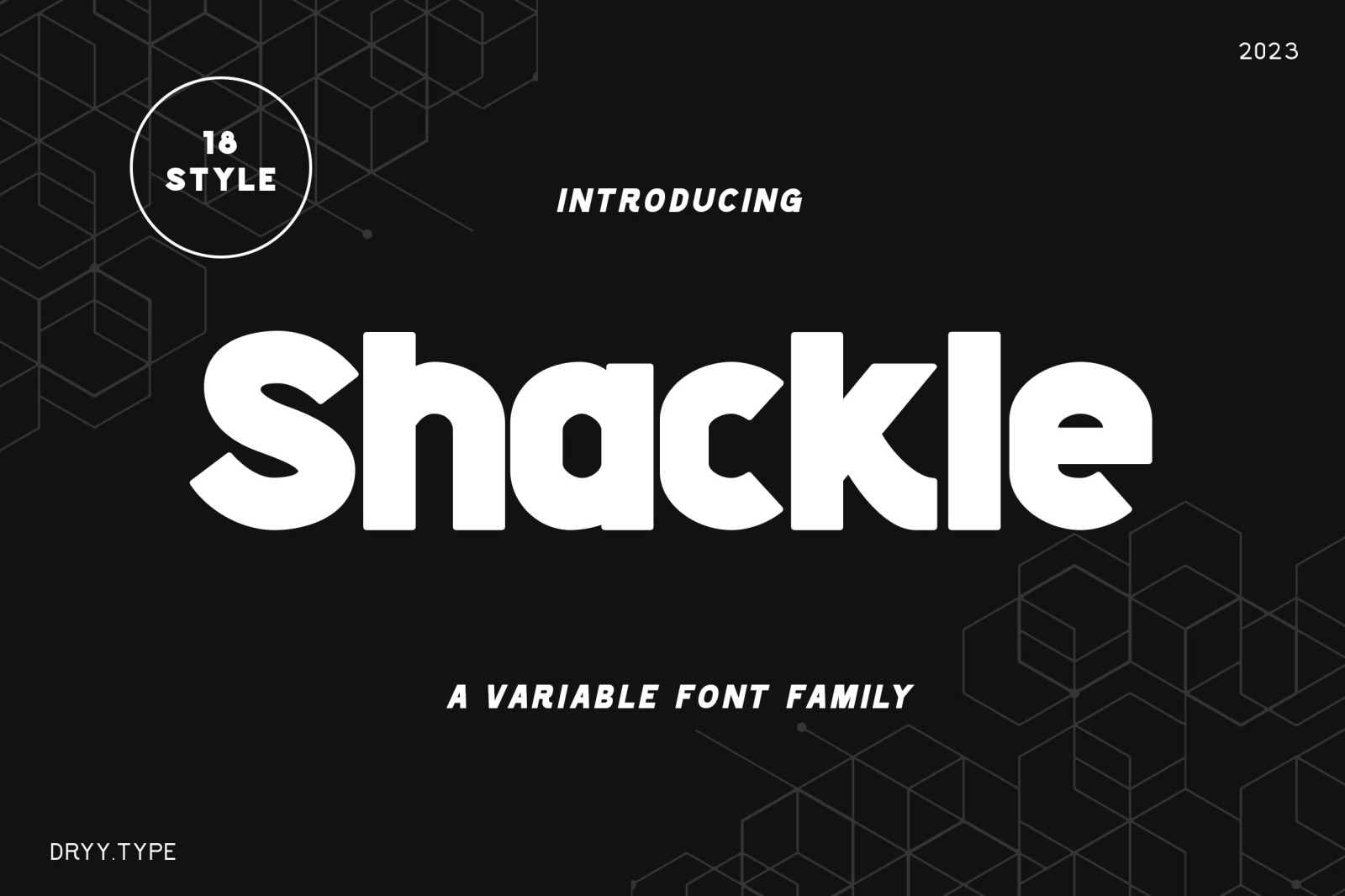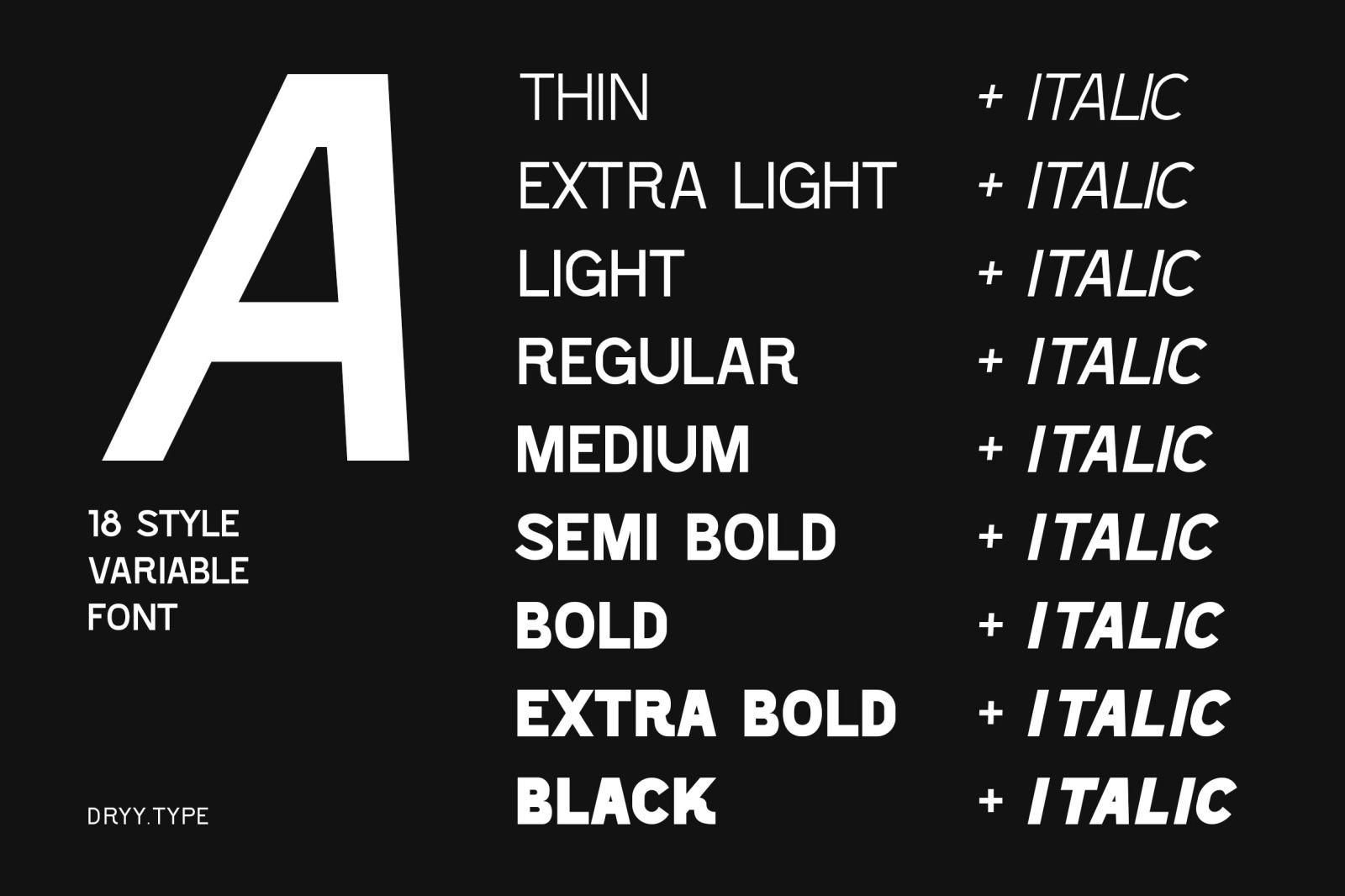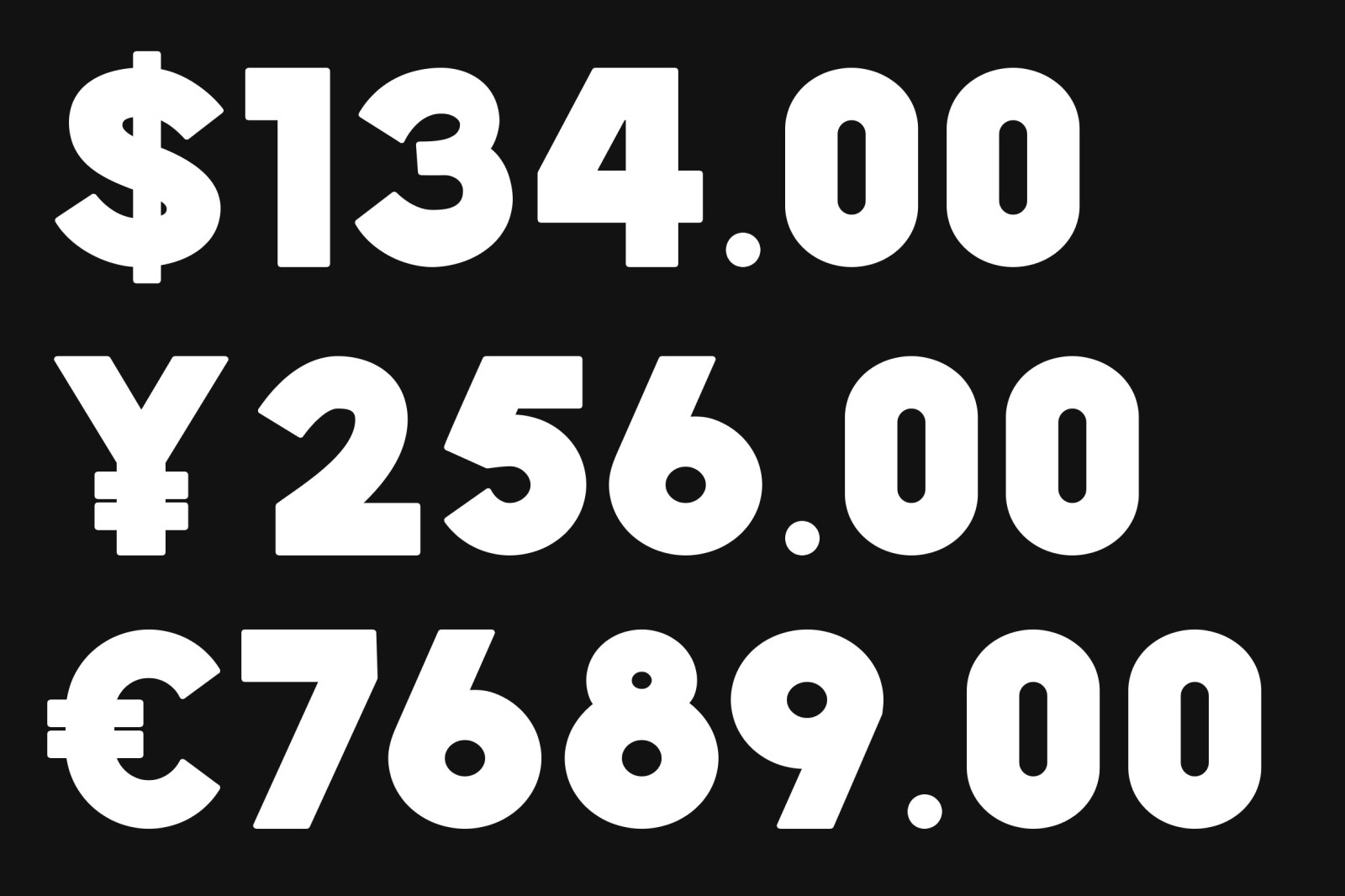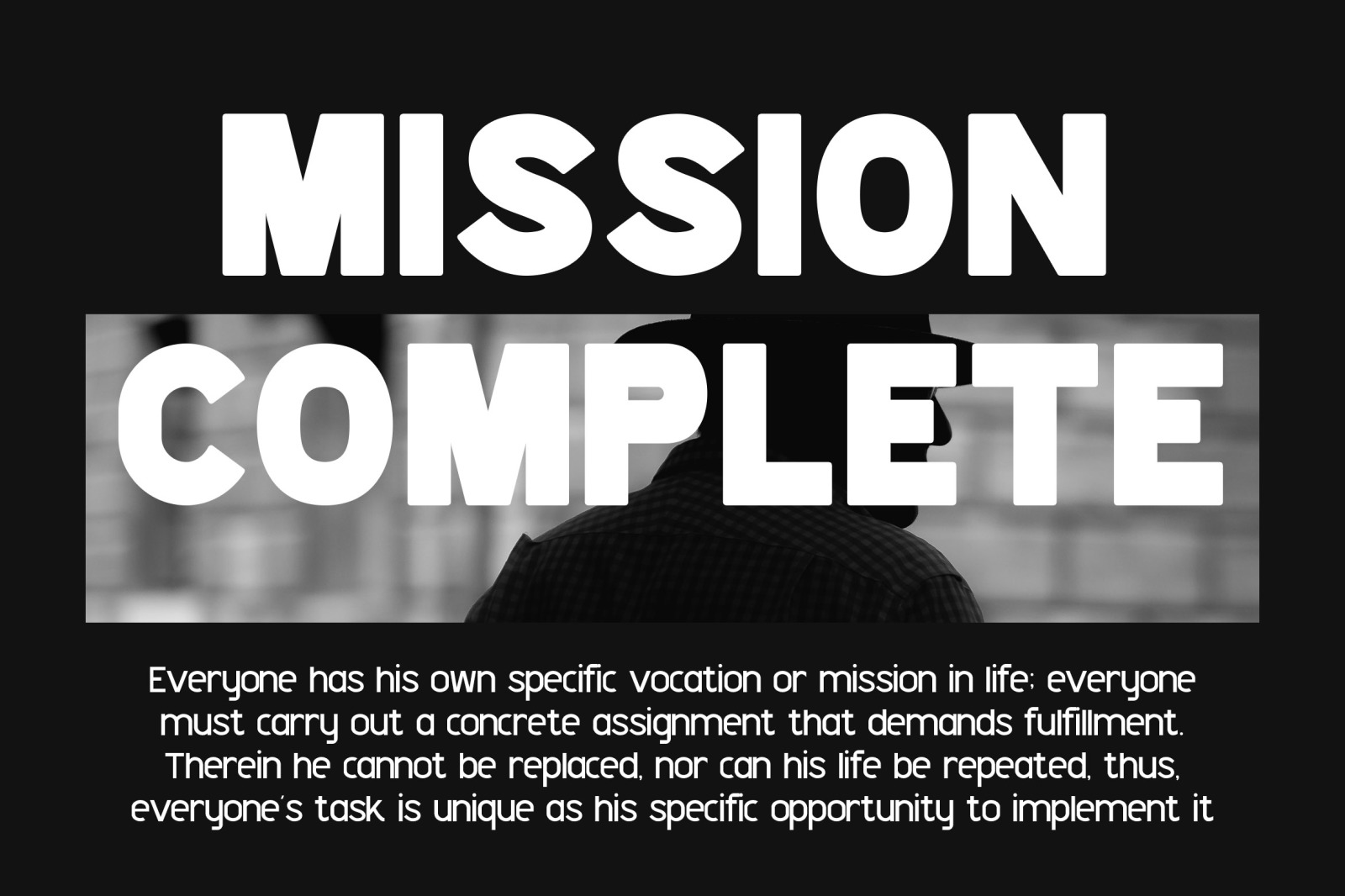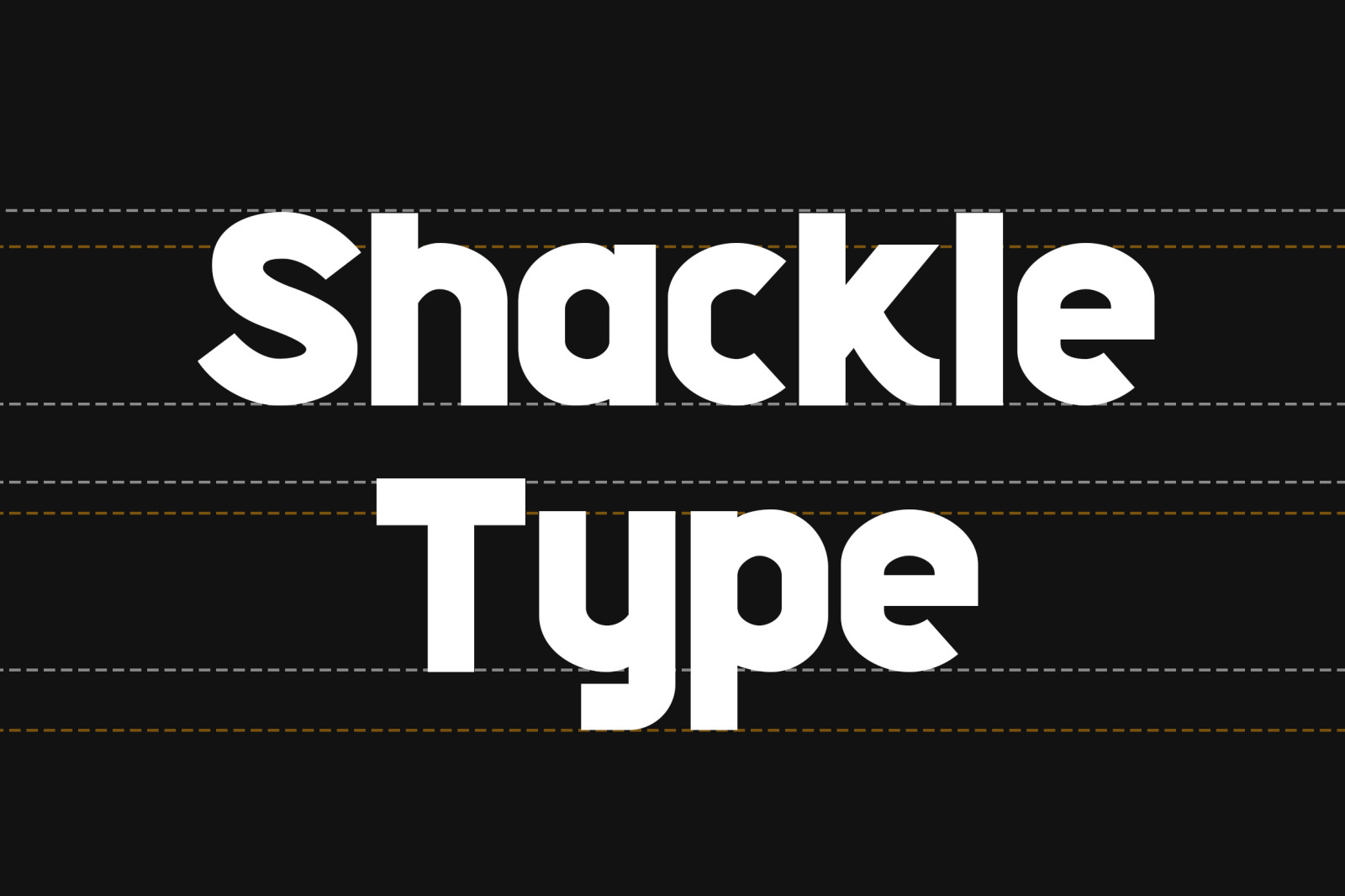
Shackle - Variable Font Family
Shackle Family
The Shackle family is a font inspired by someone's rigidity towards something that always puts forward their own desires and is perfectionist in nature. This font I created is meaningful & very versatile, it goes well with various designs, elevating them to the highest level. Add this font to your favorite creative ideas and see the results!